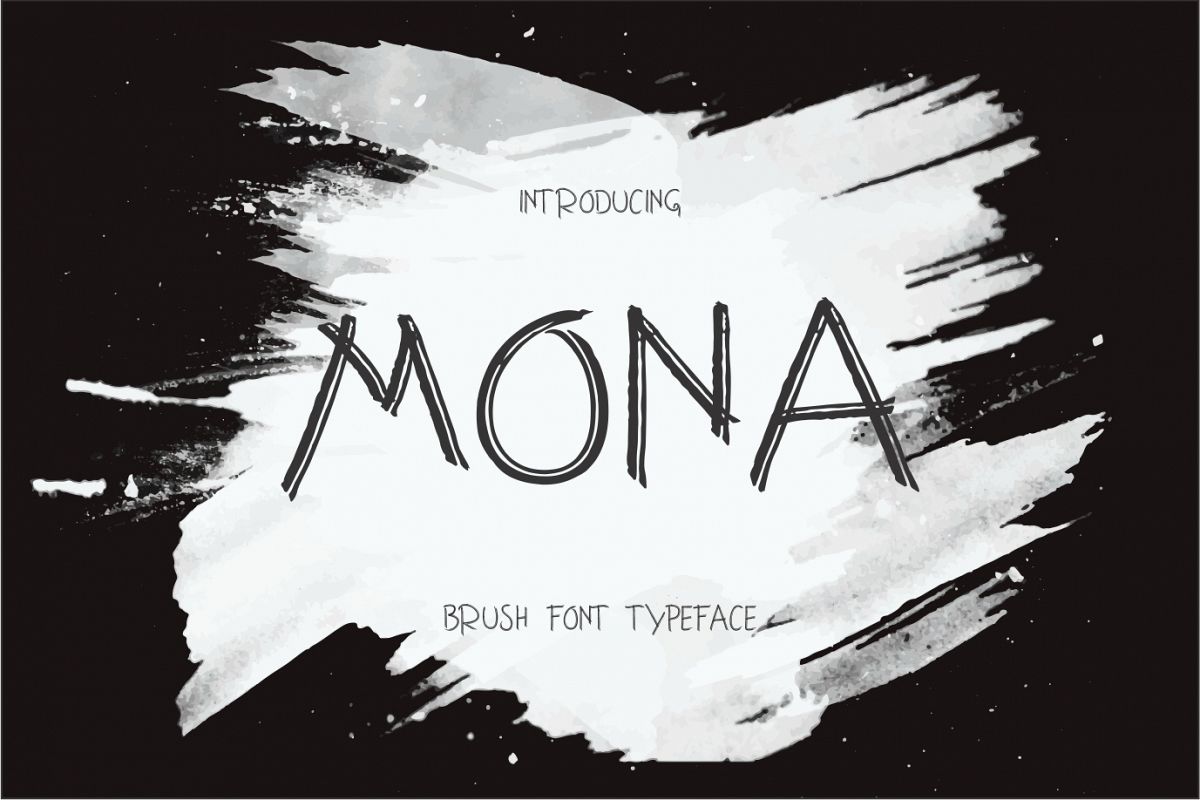
Mona
mona font is a letter shape with brush style, and svg, can be used in all designs, suitable for cover books, magazines, films and others ...
And also supports multiple languages